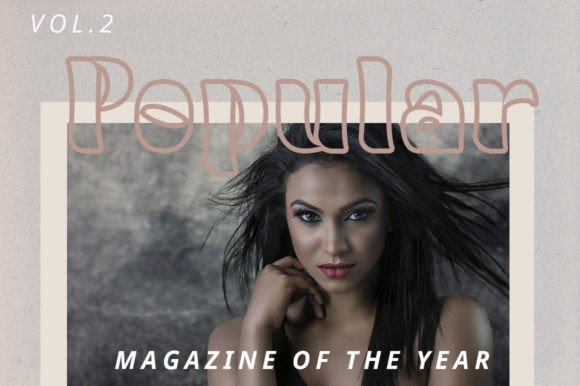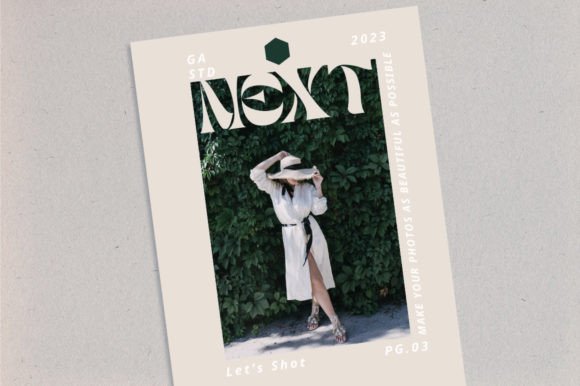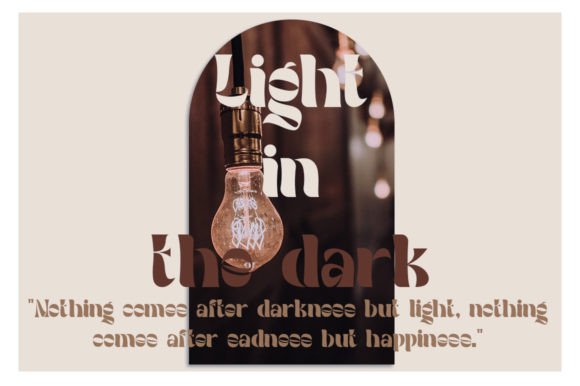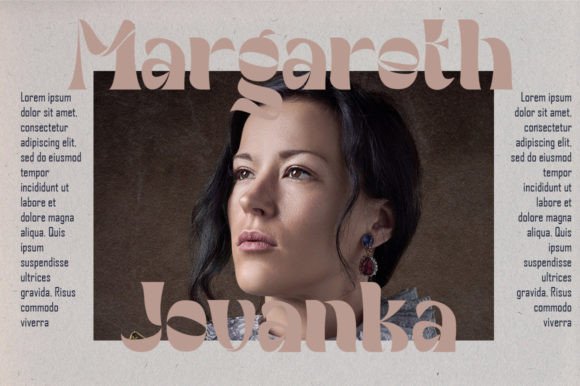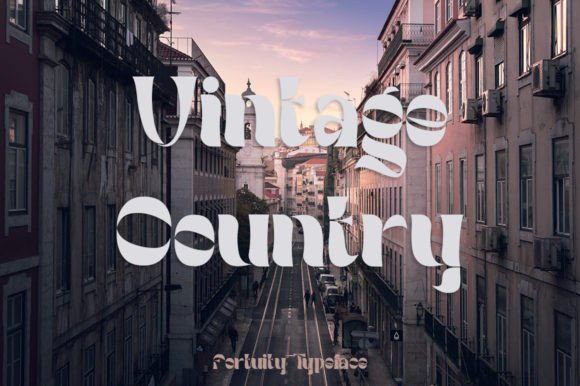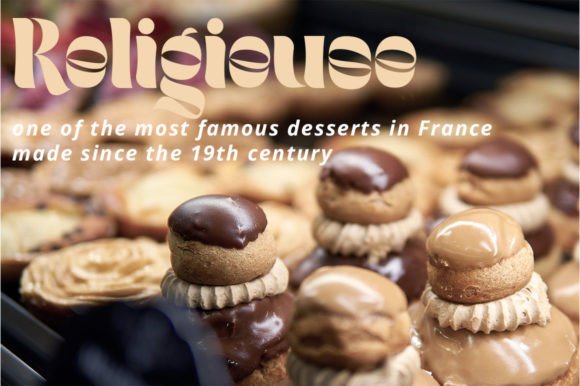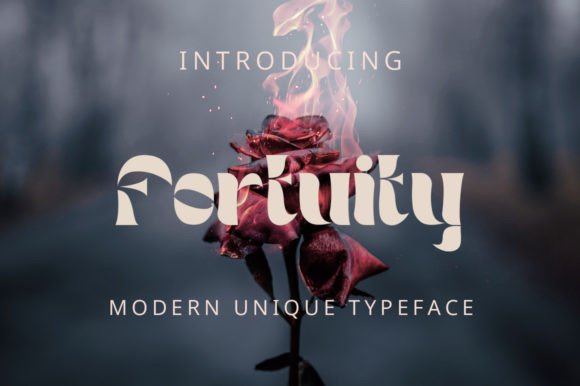
Discover the Timeless Charm of Fortuity Font: Elevate Your Designs with a Unique and Classic Touch
In the world of typography, finding the perfect font that combines classic elegance with modern boldness can be a daunting task. However, if you’re on the hunt for a typeface that exudes a unique and timeless charm, look no further than Fortuity Font. This stunning typography is designed to bring a distinctive touch to your projects, setting them apart from the rest. In this article, we’ll delve into the world of Fortuity Font, exploring its features, benefits, and uses, and why it’s a must-have for designers and crafters alike.
The Essence of Fortuity Font
Fortuity Font is a masterfully crafted typeface that seamlessly blends traditional and modern elements. Its classic theme is instantly recognizable, evoking a sense of nostalgia and sophistication. However, it’s the font’s bold and modern feel that truly sets it apart. With Fortuity Font, you can add a touch of elegance and refinement to your designs, while also injecting a dose of contemporary flair.
Key Features of Fortuity Font
So, what makes Fortuity Font so special? Here are just a few of its key features:
- Unique and Classic Theme: Fortuity Font boasts a distinctive and timeless design that’s perfect for projects that require a touch of sophistication.
- Modern and Bold Feel: The font’s bold and modern aesthetic ensures that your designs will stand out from the crowd.
- Versatile: Fortuity Font is suitable for a wide range of projects, from branding and advertising to packaging and digital media.
- Easily Readable: Despite its bold and modern feel, Fortuity Font remains highly readable, making it perfect for body text and headlines.
Benefits of Using Fortuity Font
So, why should you choose Fortuity Font for your next project? Here are just a few benefits of using this exceptional typeface:
- Adds a Touch of Elegance: Fortuity Font brings a level of sophistication and refinement to your designs, elevating them to the next level.
- Stand Out from the Crowd: With its unique and bold design, Fortuity Font ensures that your projects will grab attention and leave a lasting impression.
- Perfect for Branding: The font’s classic and modern feel makes it an excellent choice for branding and logo design, helping to establish a strong visual identity.
Who Can Benefit from Fortuity Font?
Fortuity Font is a versatile typeface that can be used by a wide range of designers and crafters, including:
- Graphic Designers: Fortuity Font is perfect for graphic designers looking to add a touch of elegance and sophistication to their designs.
- Branding and Identity Designers: The font’s classic and modern feel makes it an excellent choice for branding and identity designers.
- Crafters and Makers: Fortuity Font is also suitable for crafters and makers looking to add a unique and personal touch to their projects.
| Font Name | Fortuity Font |
| Author | Green Adventure Studio |
In conclusion, Fortuity Font is a truly exceptional typeface that offers a unique and classic theme with a modern and bold feel. Its versatility, readability, and elegance make it a must-have for designers and crafters looking to elevate their projects and add a touch of sophistication. Whether you’re working on a branding project, creating a logo, or simply looking for a font to add some personality to your design, Fortuity Font is an excellent choice. So why wait? Discover the timeless charm of Fortuity Font today and take your designs to the next level.